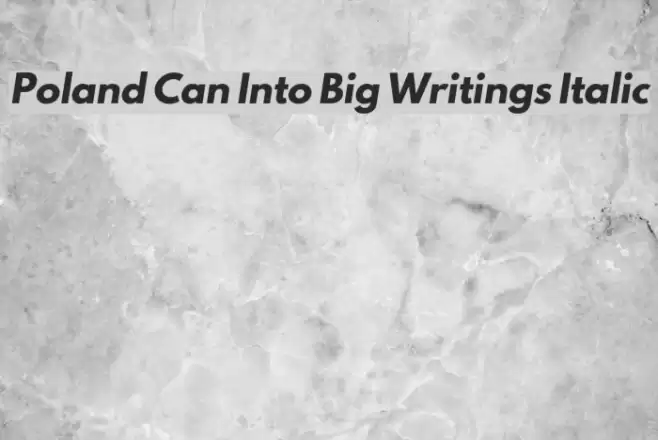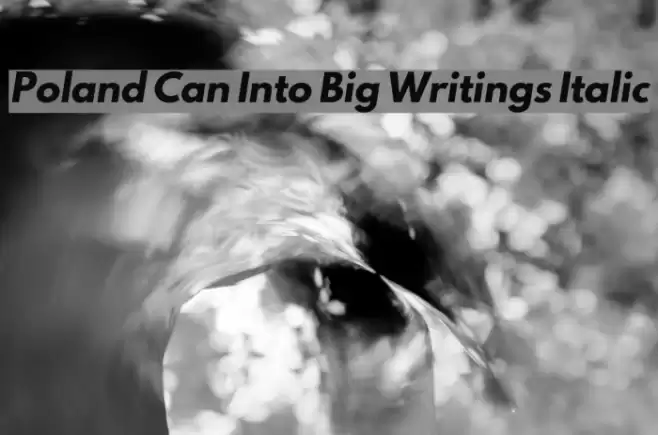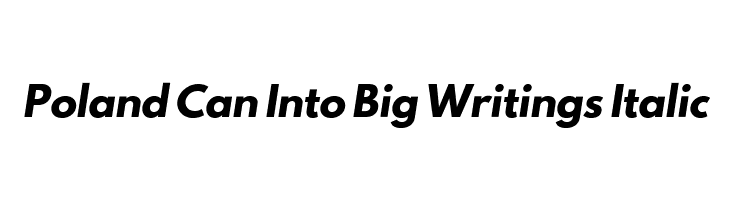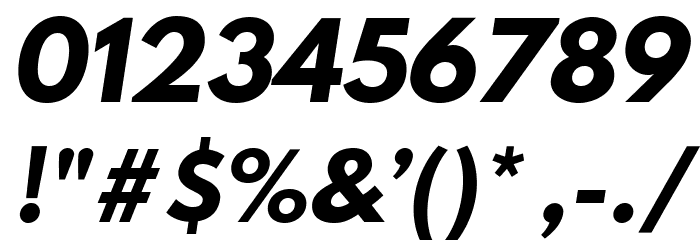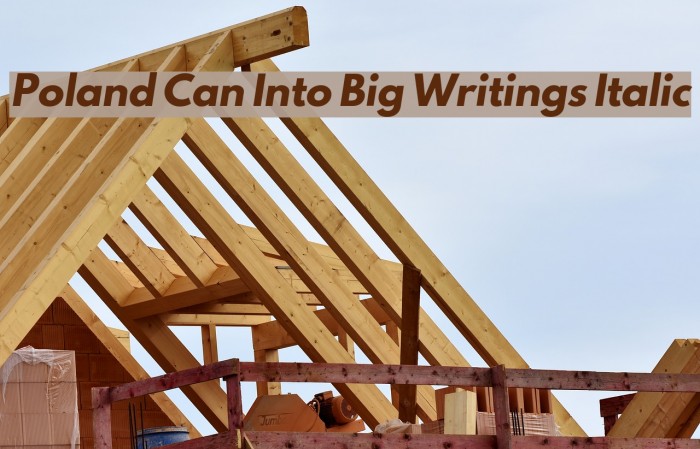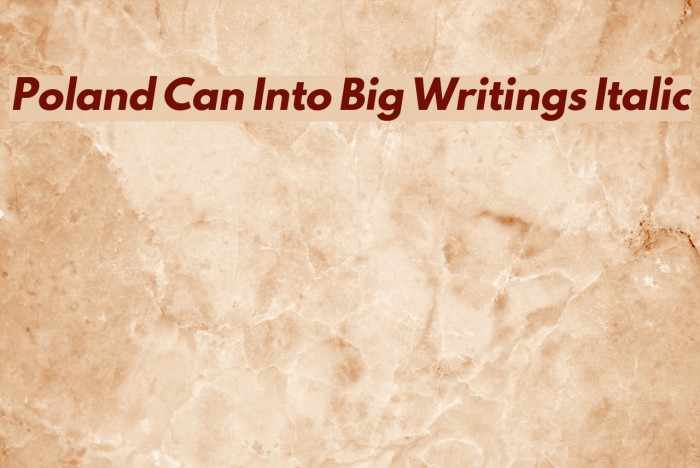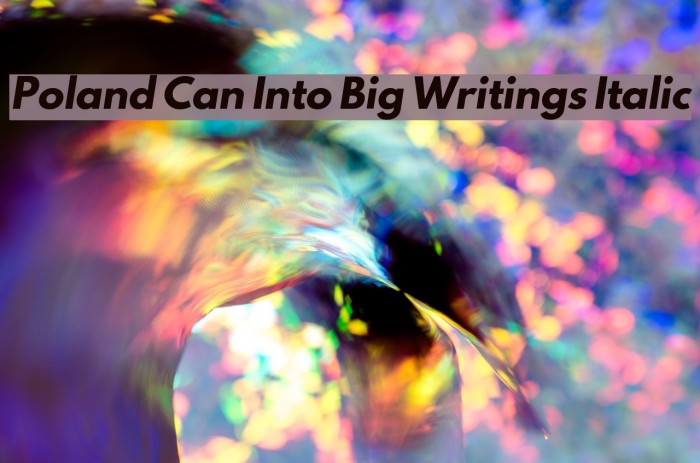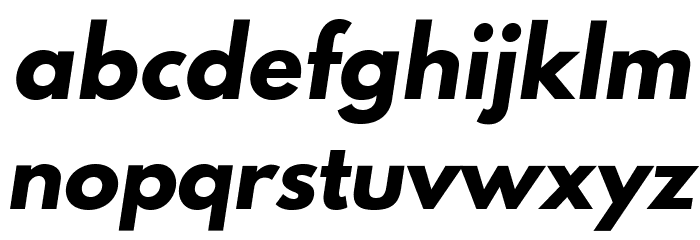
Poland Can Into Big Writings Italic
This font features a bold and dynamic italic style, characterized by its strong and assertive slant. The letters are well-defined with a consistent stroke width, providing a sense of stability and confidence. The uppercase letters are slightly taller than average, giving them a commanding presence, while the lowercase letters maintain a harmonious balance with a smooth flow. The numerals are clear and legible, matching the overall boldness of the typeface. Special characters are designed with the same attention to detail, ensuring uniformity across all glyphs. This font is ideal for making impactful statements, as its bold and italic nature draws attention and conveys a sense of urgency and importance.
A bold, italic font with a strong slant and consistent stroke width, perfect for impactful statements.
- Proposed Projects: Ideal for headlines, advertising, branding, and any project requiring a bold, attention-grabbing typeface.
- Use Case: Headlines, Logos, Advertising